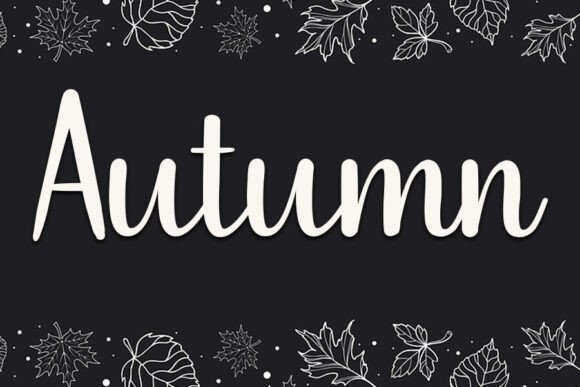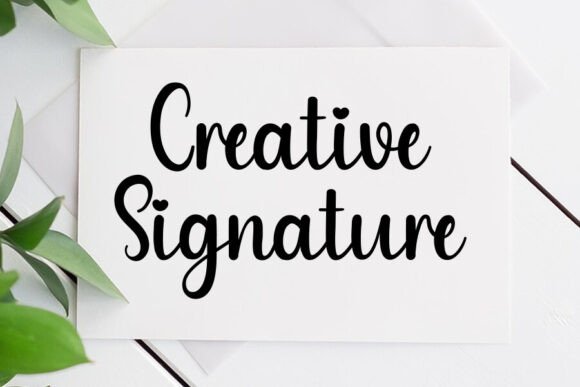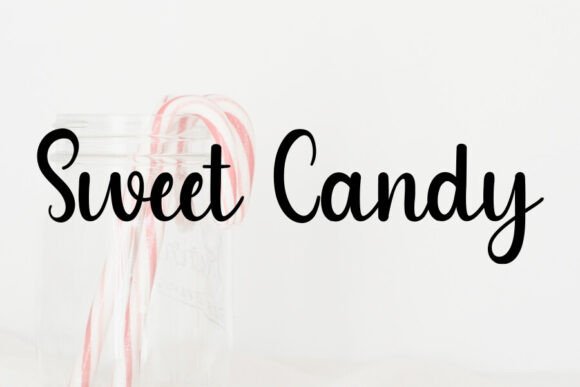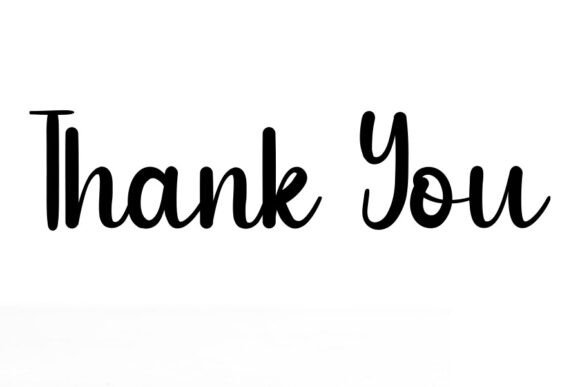
Introducing Handmade Font: A Timeless and Lovely Handwritten Style
Are you a designer or crafter looking for a unique and eye-catching font to elevate your creative projects? Look no further than Handmade Font, a beautiful and timeless handwritten style that is sure to make your designs come alive. In this article, we’ll explore the features and benefits of Handmade Font, and why it’s the perfect choice for creating stunning logos, branding, and quotes.
The Charm of Handmade Font
Handmade Font is a lovely and charming handwritten font that exudes a sense of warmth and personality. Every letter has a unique and beautiful touch, making it perfect for designs that require a personal and human touch. The font’s handmade quality gives it a distinctive and authentic feel that sets it apart from more generic and machine-generated fonts.
Handmade Font is an excellent choice for creating eye-catching logos, branding, and quotes. Its elegant and cursive style makes it perfect for designs that require a touch of sophistication and elegance. Whether you’re creating a logo for a new business, designing a brand identity, or crafting a inspirational quote, Handmade Font is sure to make your design stand out.
What Sets Handmade Font Apart
So, what sets Handmade Font apart from other fonts? Here are just a few features that make it a standout choice:
- Unique and beautiful lettering: Every letter in Handmade Font has a unique and beautiful touch, making it perfect for designs that require a personal and human touch.
- Handmade quality: The font’s handmade quality gives it a distinctive and authentic feel that sets it apart from more generic and machine-generated fonts.
- Elegant and cursive style: Handmade Font’s elegant and cursive style makes it perfect for designs that require a touch of sophistication and elegance.
- Timeless appeal: Handmade Font has a timeless appeal that will never go out of style, making it a great investment for designers and crafters.
Tips for Using Handmade Font
Here are a few tips for using Handmade Font in your designs:
- Use it sparingly: Because of its handmade quality, Handmade Font is best used sparingly to add a touch of elegance and sophistication to your designs.
- Pair it with other fonts: Handmade Font pairs well with other fonts, such as sans-serif fonts, to create a striking contrast.
- Experiment with colors: Handmade Font looks great in a variety of colors, so don’t be afraid to experiment and find the perfect color to match your design.
In conclusion, Handmade Font is a timeless and lovely handwritten font that is perfect for designers and crafters looking to add a touch of elegance and sophistication to their designs. Its unique and beautiful lettering, handmade quality, and elegant and cursive style make it a standout choice for creating eye-catching logos, branding, and quotes. Whether you’re a seasoned designer or just starting out, Handmade Font is a great addition to your font library.